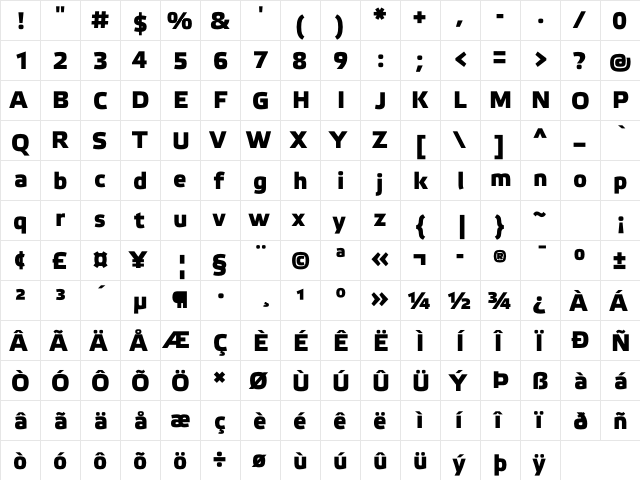
Elektra Medium Pro Bold
| Designer | Frantisek Storm |
Design Context for Elektra Medium Pro Typeface
Elektra Medium Pro takes a measured approach to typography — its balanced proportions and neutral character make it a reliable workhorse for both digital and print work. Its bold stroke weight gives it real presence on the page.
Pro Tip: Use Elektra Medium Pro in both headline and body roles to test its range before committing to a single application.